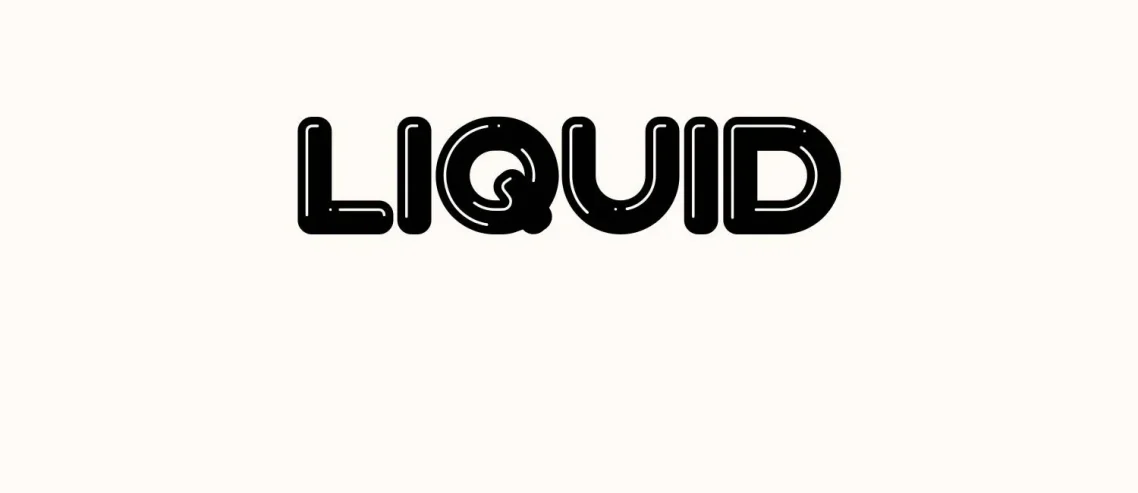
The Liquid font is a dynamic typeface that resembles dripping or flowing liquid. Its organic and irregular shapes convey a feeling of movement and energy. Liquid fonts are commonly utilized in creative design projects like music album covers, event promotions, or any situation where a distinctive and captivating visual style is sought after.
The purpose of the Liquid font is to add a sense of creativity and unpredictability to text, making it perfect for projects that aim to break away from traditional design norms.
View of Liquid Font
Liquid Font Info
Name | Liquid Font |
Designer | Octotype |
Style | Fancy |
Font Family
- Liquid Regular